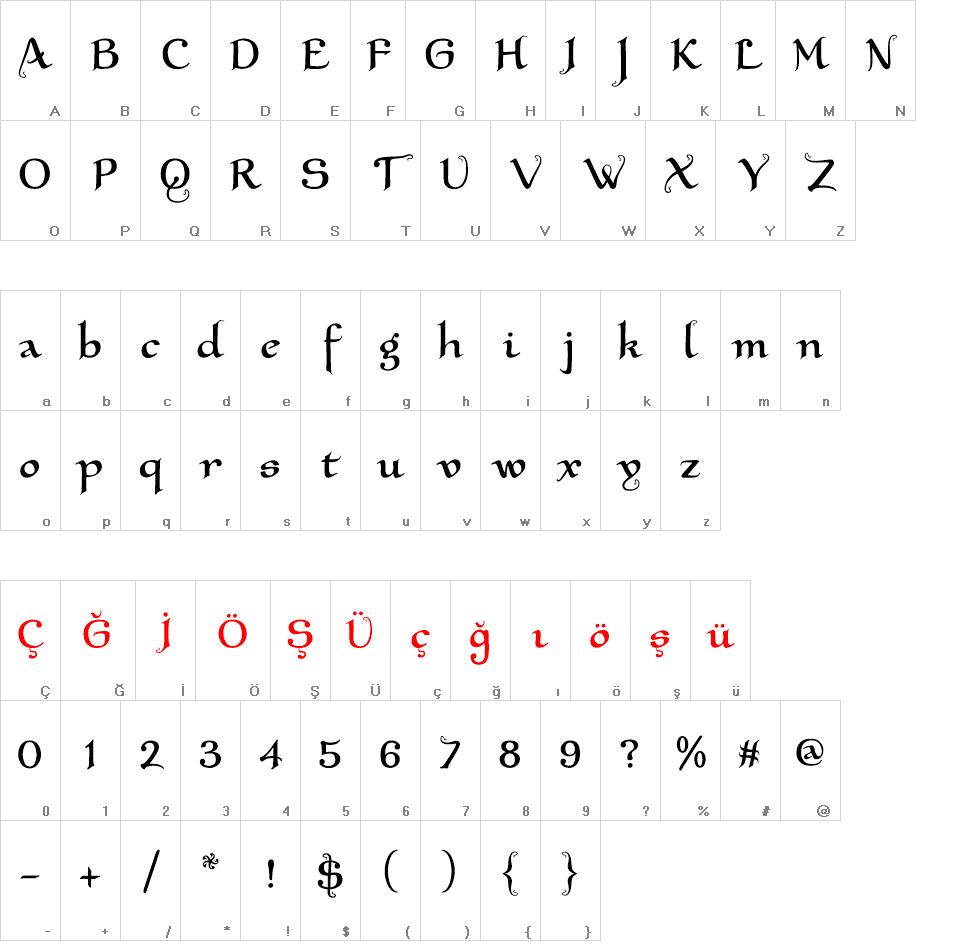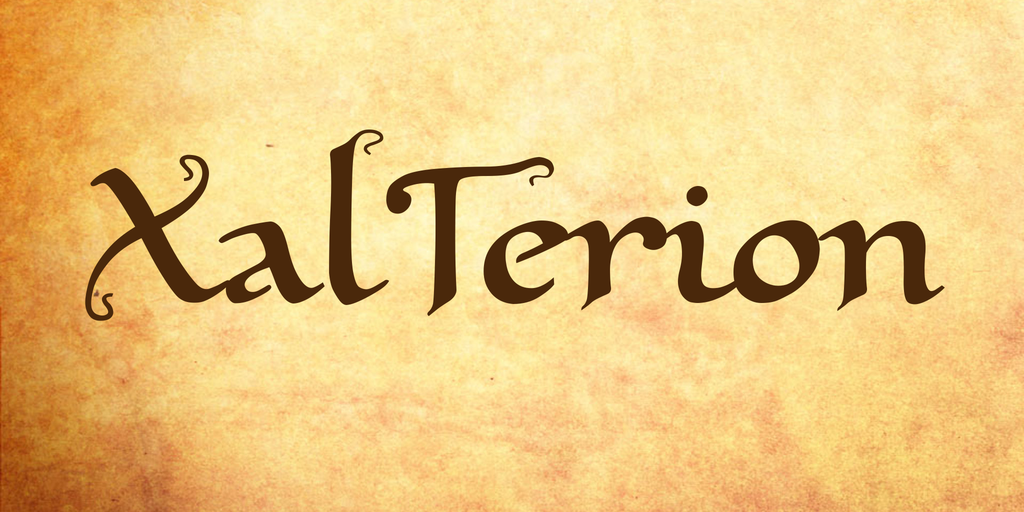
XalTerion font
This font was inspired by a few lower case characters penned by a much admired North American calligrapher. However, to make this quite clear: Even the b, h, p, and t I went from, are only similar in shape to the originals, and by no way exact copies. Everything else -- especially that little hook in the l, A, X, and elsewhere --, is purely of my own invention.
The font name is fancy (pronouncing the X as an s may give it some meaning), and the winged beast on the micro sign is derived from the same inital that was used in the Tycho'sRecipe font.
For a change, the XalTerion font has a number sign -- and on the correct key, too! There is a long s, but it hasn't been allowed to leave its place. And the only alternate character in this font is a cursive g on the bar and broken bar sign.
Update 2010 has considerably downsized the font, has made the stems of the b, d, f, h, k, and l somewhat higher (the Th will look a lot better now), has enlarged the dashes, and has not only redesigned the composite glyphs, but added many new ones. In fact, the font now contains every accented Western character I could find in Arial -- including Ohorn/ohorn, U/uhorn and their derivatives, as well as Schwa/schwa.